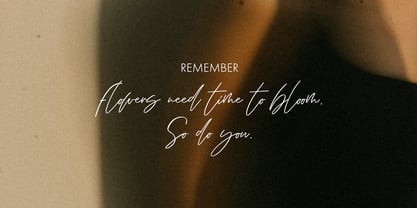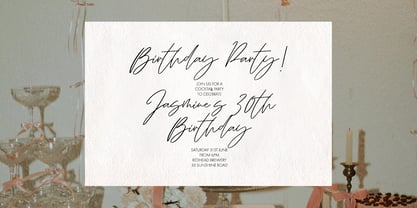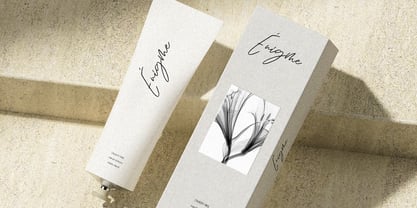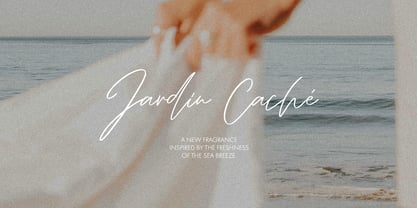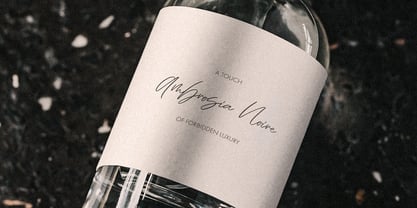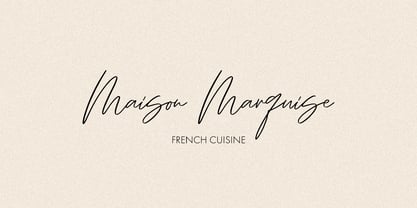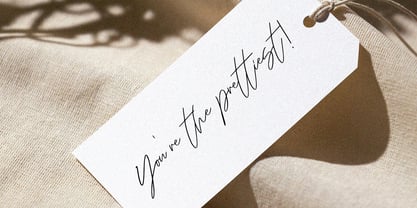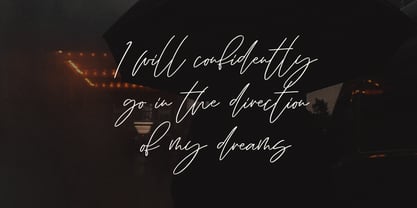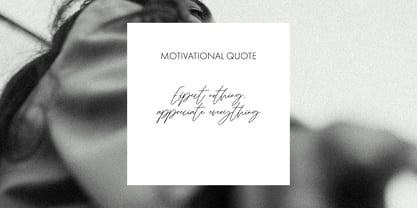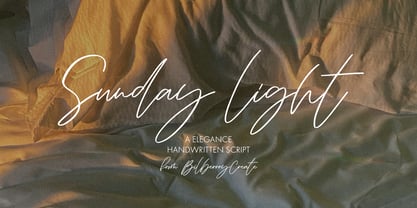
Sunday light
by Bilberry Create
The Sunday light Font Family was designed by Daria Cherniackova and published by Bilberry Create. Sunday light contains 1 styles. More about this family
Sunday light elegance handwritten font!
Sunday light handwritten font can be used to create anything as you wish, logos invitation cards, wedding cards, birthday cards, home decor, packaging holiday gifts, party decorations, print on fabrics and so much more.